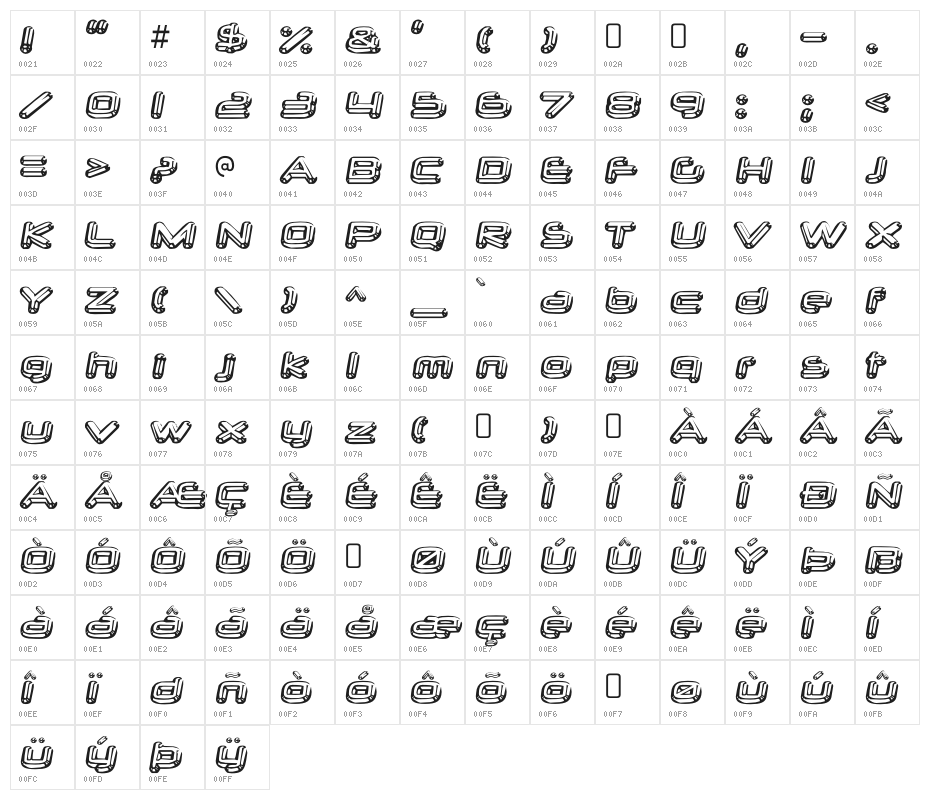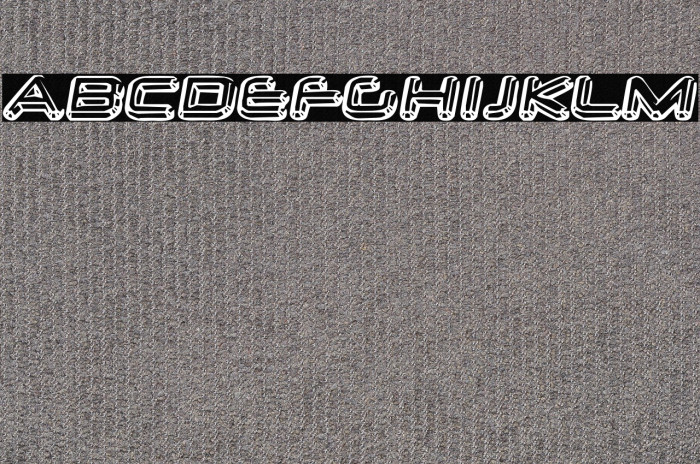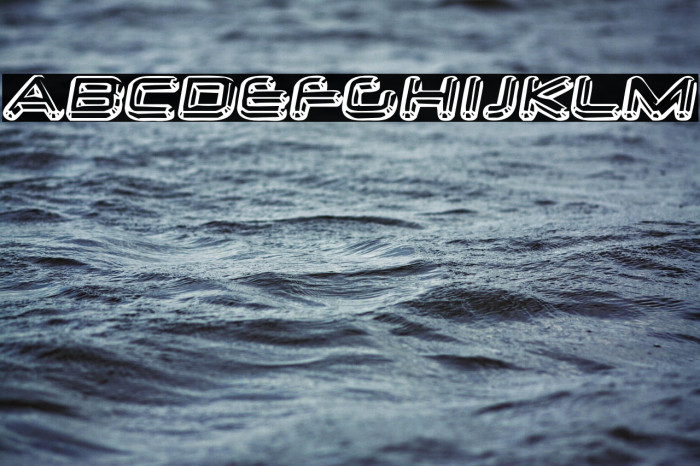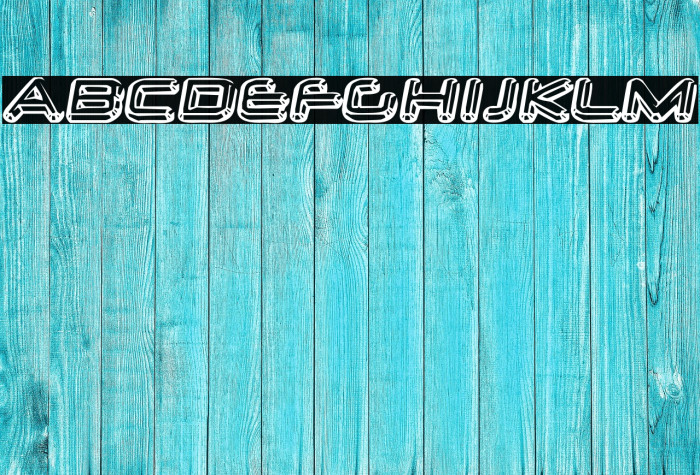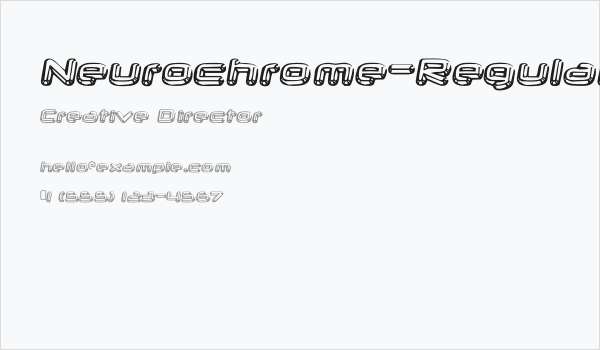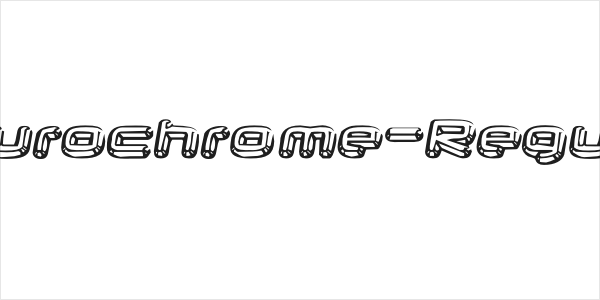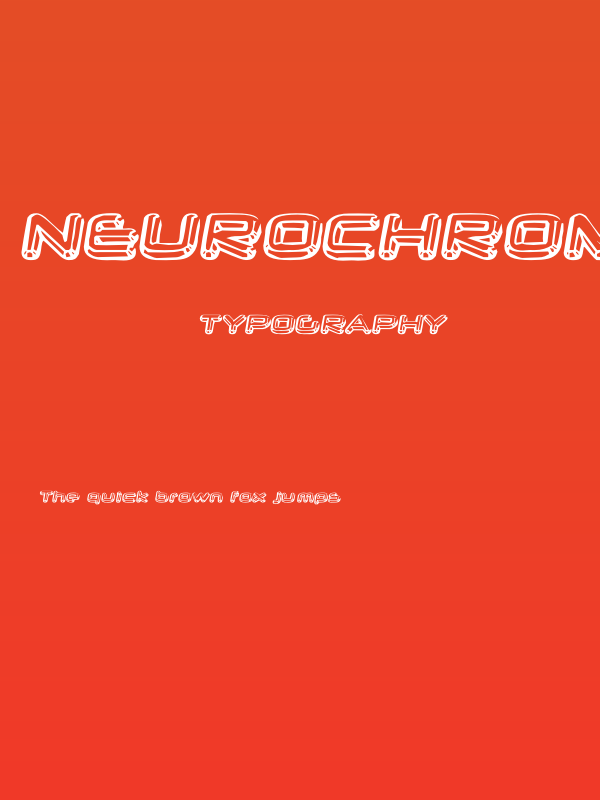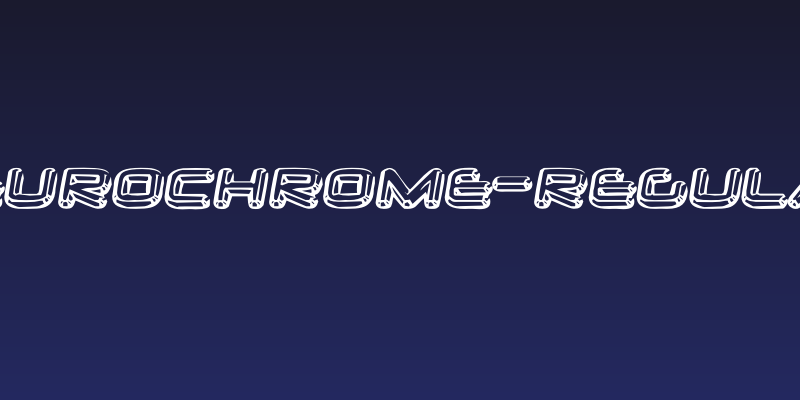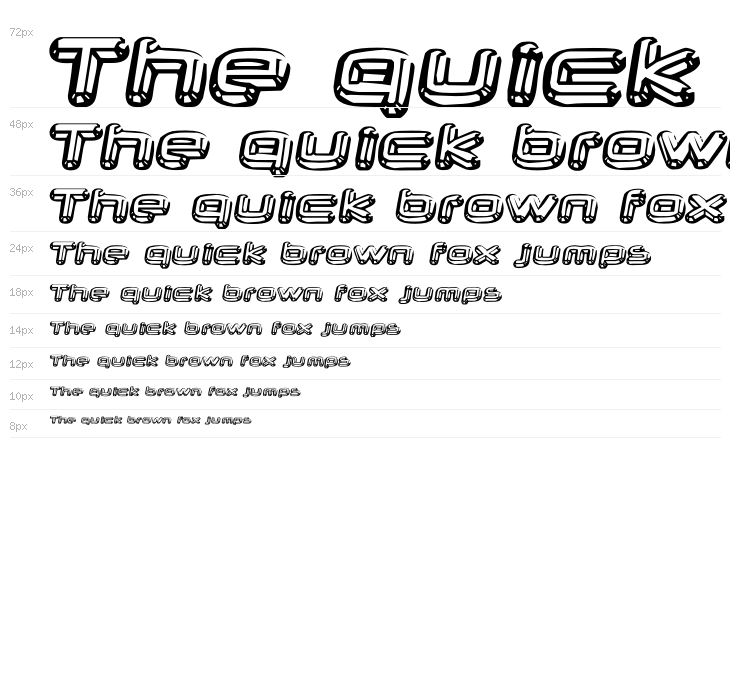
Neurochrome-Regular Font
Neurochrome-Regular Description
This font features a futuristic and bold design with a three-dimensional effect, giving the characters a sense of depth and movement. The letters are constructed with thick, rounded edges and a shadow-like outline that enhances the 3D appearance. The style is consistent across uppercase, lowercase, numerals, and special characters, maintaining a cohesive look. The font's unique structure makes it stand out, ideal for projects that require a modern and dynamic aesthetic.
| Proposed Projects | Ideal for sci-fi themed posters, video game titles, technology branding, and innovative product packaging. |